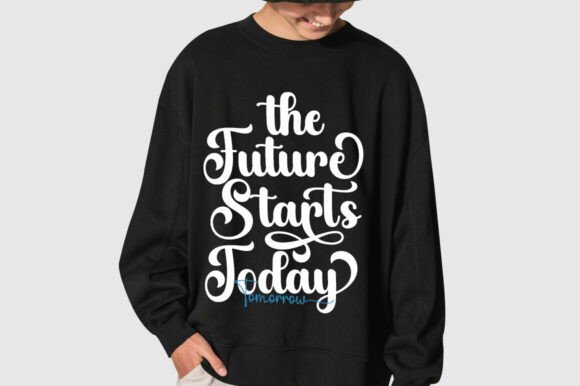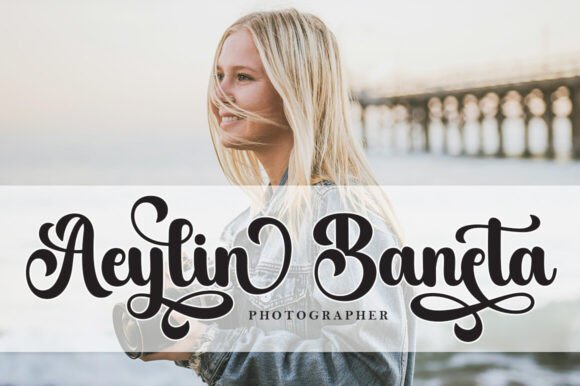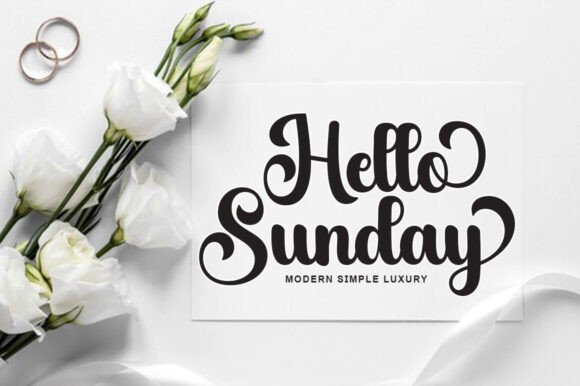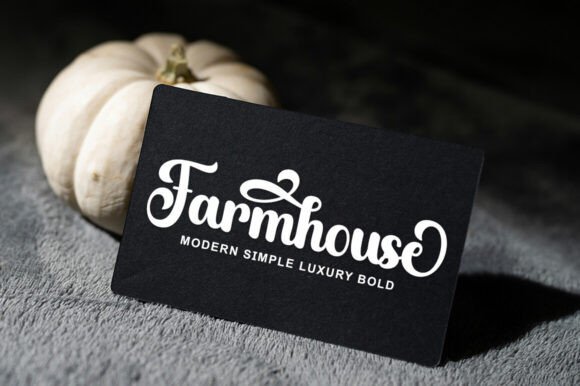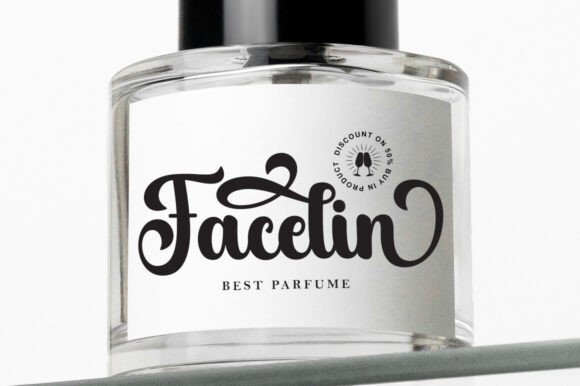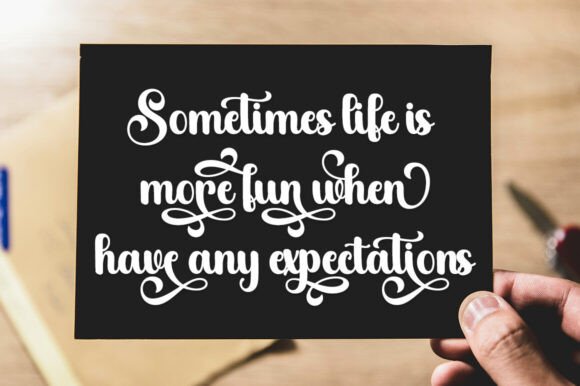
Bulky Sample Font: Elevate Your Designs with Elegance and Charm
Are you looking for a font that exudes elegance and charm? Look no further than Bulky Sample Font. This stunning script font is a stylish homage to classic calligraphy, and it’s perfect for designers and crafters who want to take their projects to the next level. In this article, we’ll explore the features and benefits of Bulky Sample Font, and show you how it can elevate your designs to new heights.
A Stylish Homage to Classic Calligraphy
Bulky Sample Font is a beautiful script font that’s inspired by the classic calligraphy of the past. Its elegant strokes and flowing lines make it perfect for creating sophisticated and eye-catching designs. Whether you’re working on a branding project, a wedding invitation, or a logo, Bulky Sample Font is sure to impress. Its unique and stylish design will add a touch of elegance to any project, making it stand out from the crowd.
One of the best things about Bulky Sample Font is its versatility. It’s a font that can be used for a wide range of design projects, from titles and headings to logos and labels. Whether you’re creating a formal invitation or a playful sign, Bulky Sample Font is up to the task. Its elegant design makes it perfect for:
- Branding: Create a sophisticated brand identity with Bulky Sample Font.
- Wedding designs: Add a touch of elegance to your wedding invitations, signs, and decorations.
- Invitations: Create beautiful and eye-catching invitations for any occasion.
- Signs: Make a statement with elegant and stylish signs.
- Logos: Create a unique and memorable logo with Bulky Sample Font.
- Labels: Add a touch of sophistication to your labels and packaging.
Why Choose Bulky Sample Font?
So why choose Bulky Sample Font over other fonts? Here are just a few reasons:
- Elegance and charm: Bulky Sample Font exudes elegance and charm, making it perfect for designers and crafters who want to create sophisticated designs.
- Unique and stylish: Its unique and stylish design makes it stand out from other fonts, ensuring that your designs will be noticed.
- Versatile: Bulky Sample Font can be used for a wide range of design projects, making it a great addition to any designer’s toolkit.
Tips for Using Bulky Sample Font
Here are a few tips for using Bulky Sample Font in your designs:
- Use it sparingly: Bulky Sample Font is a statement font, so use it sparingly to make the most impact.
- Pair it with other fonts: Pair Bulky Sample Font with other fonts to create a unique and interesting design.
- Experiment with colors: Experiment with different colors to find the perfect combination for your design.
| Font Name | Bulky Sample Font |